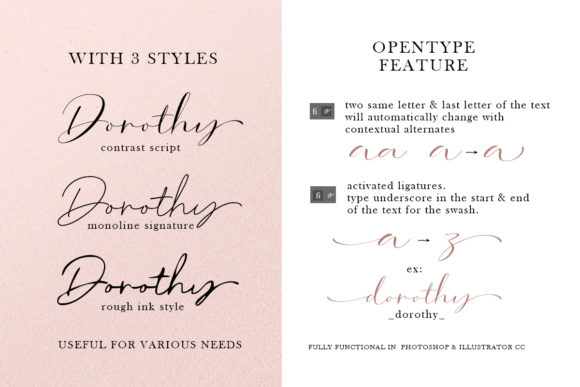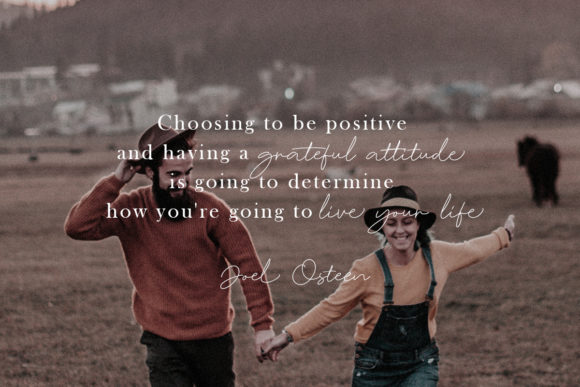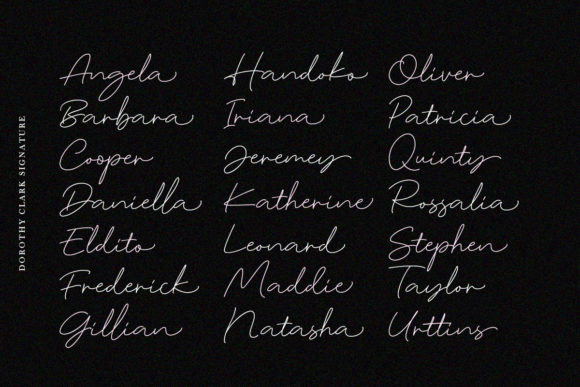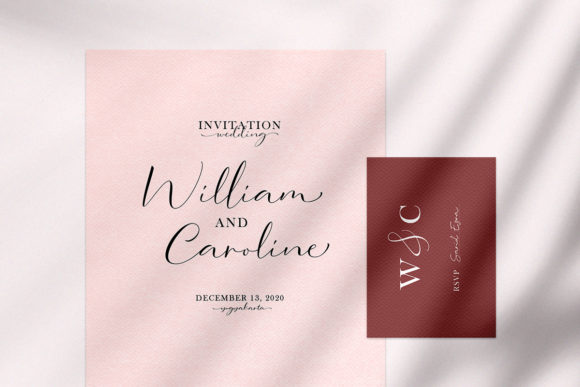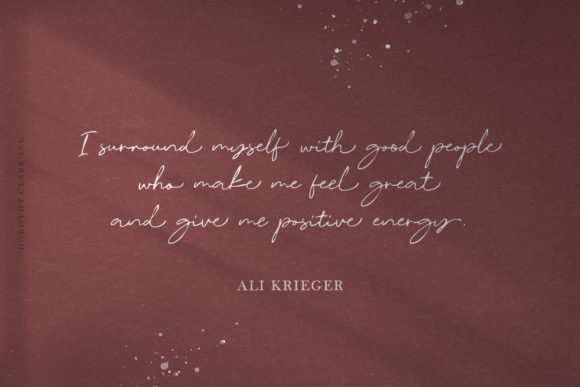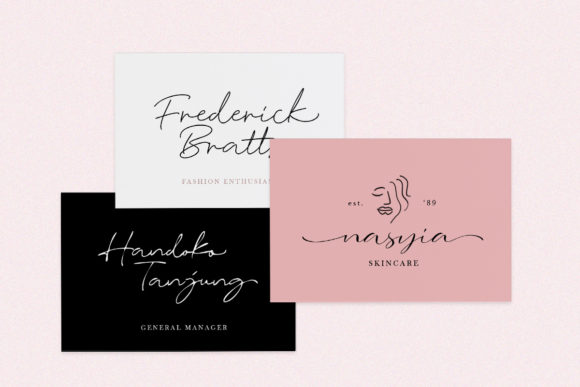
Introduction to Dorothy Clark Script Font
Have you ever been stuck in a design rut, desperately searching for the perfect font to elevate your creative project? I know I have. There’s nothing quite like the thrill of discovering a new design resource that sparks inspiration and brings your ideas to life. Today, we’re shining the spotlight on the stunning Dorothy Clark Script Font, a high-quality script that’s sure to add a bold, modern vibe to any design.
Whether you’re working on a branding project, creating a beautiful invitation, or simply looking to add some flair to your social media graphics, this font is a must-have in your design arsenal. With its elegant, handwritten feel and versatility, Dorothy Clark Script Font is the perfect choice for designers who crave a little extra sophistication in their designs.
Key Features of Dorothy Clark Script Font
- High-quality script font designed for creative projects, ideal for wedding invitations, quotes, and other elegant designs.
- Unique characteristics include flowing connections and elegant flourishes, adding a touch of sophistication to any design project.
Honest Review: Dorothy Clark Script Font
I recently had the chance to work with the Dorothy Clark Script Font on a creative project and I must say it’s been a game-changer. The high quality of this font is evident in its elegant and sophisticated design, making it perfect for any design project that requires a touch of class.
Here are some things that work well with the Dorothy Clark Script Font:
- High quality design that’s perfect for creative projects
- Works well with a variety of design styles
- Not as versatile for projects that require a bold or dramatic font
Overall, I’m very impressed with the Dorothy Clark Script Font and would highly recommend it to anyone looking for a high-quality design resource for their creative project.
The Dorothy Clark Script Font is suitable for various creative projects, including wedding invitations, branding materials, and social media graphics. Its elegant, handwritten style makes it an excellent choice for projects requiring a touch of sophistication and elegance.